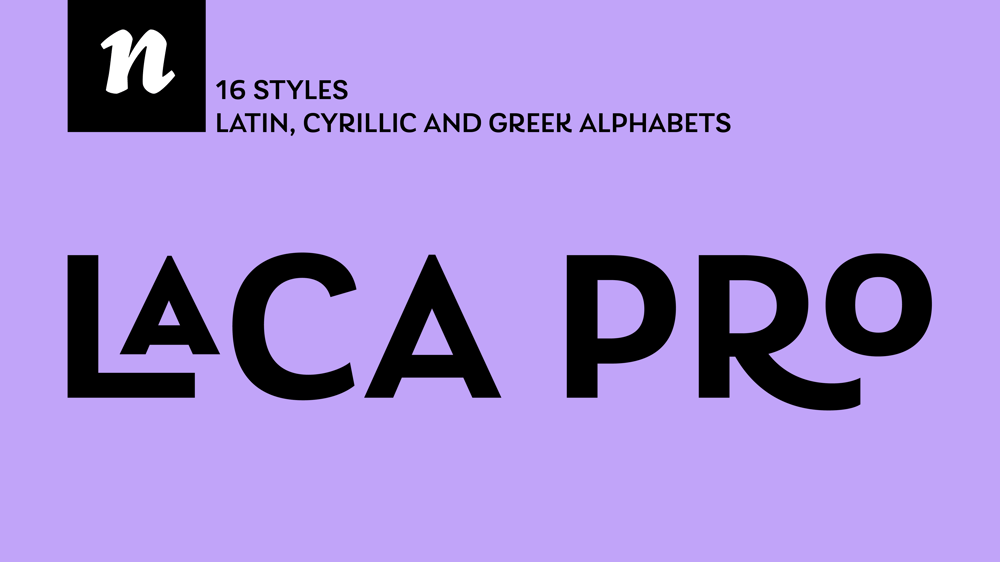
Laca Pro
Laca Pro font
Laca Pro Font Family was designed by Joana Correia and published by Nova Type Foundry. Laca Pro contains 16 styles and family package options. Laca Pro now supports Greek and Cyrillic scripts. The letter shapes capture the playful spirit of Laca. The added language support brings even more usefulness for the use of Laca for branding, editorial and other projects. Communication is one of our passions, by supporting other scripts we want to create better communication.